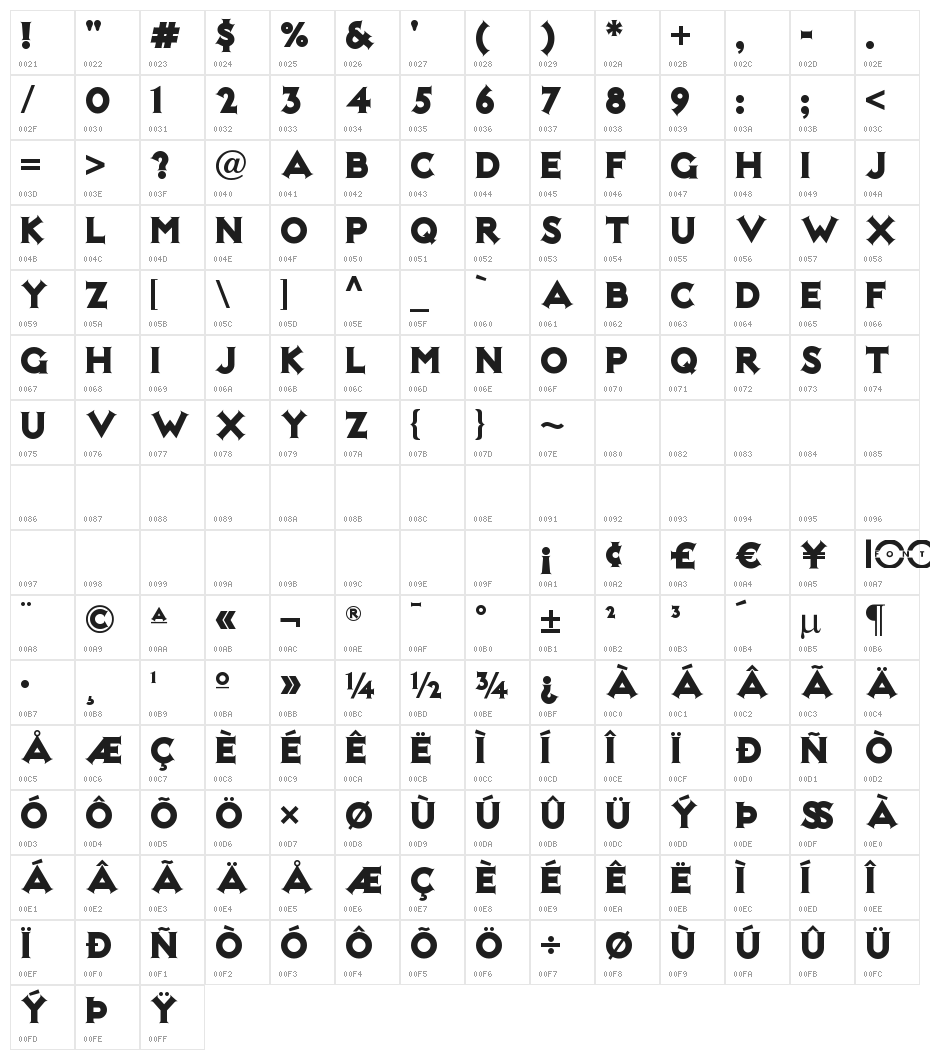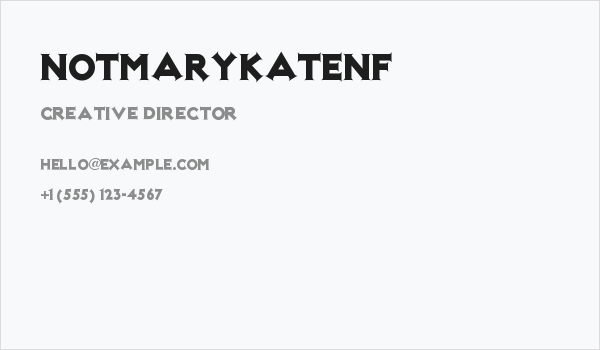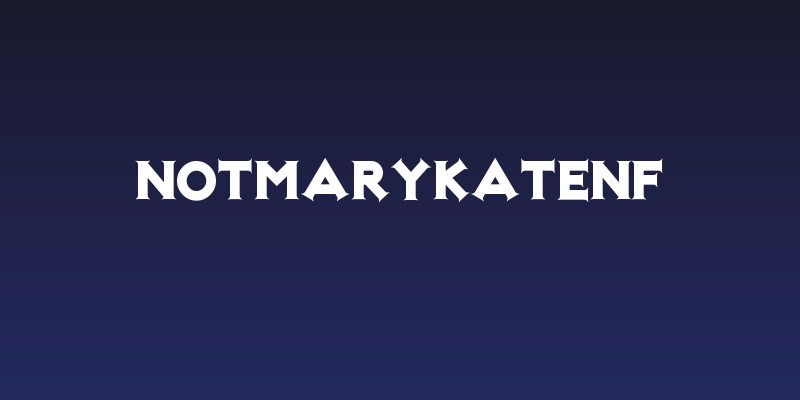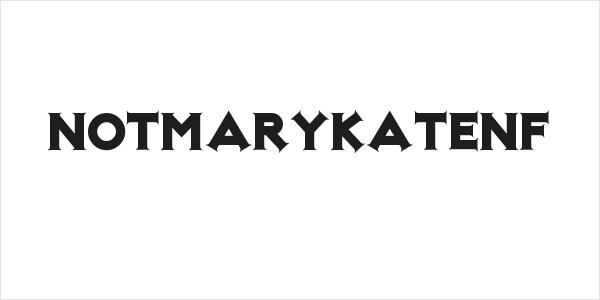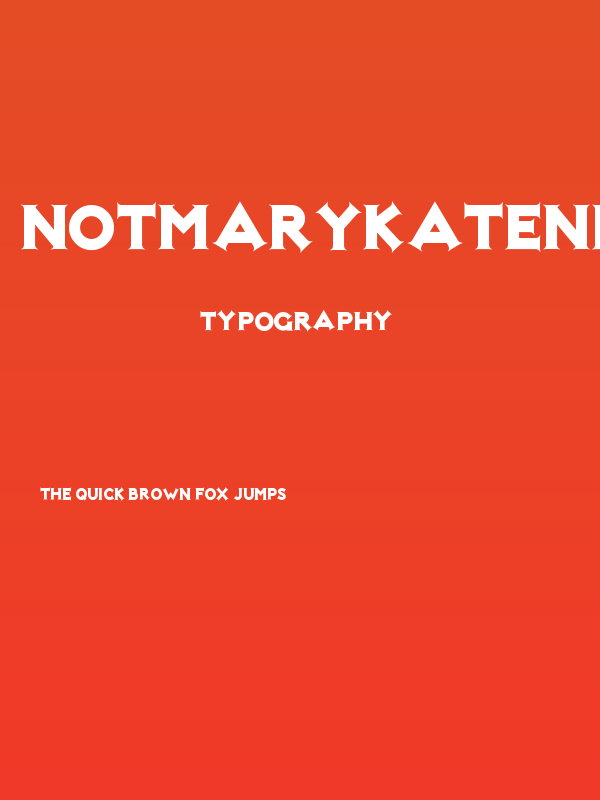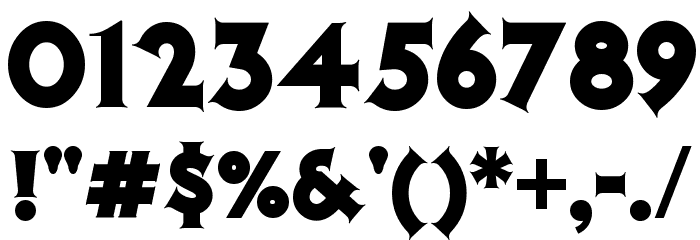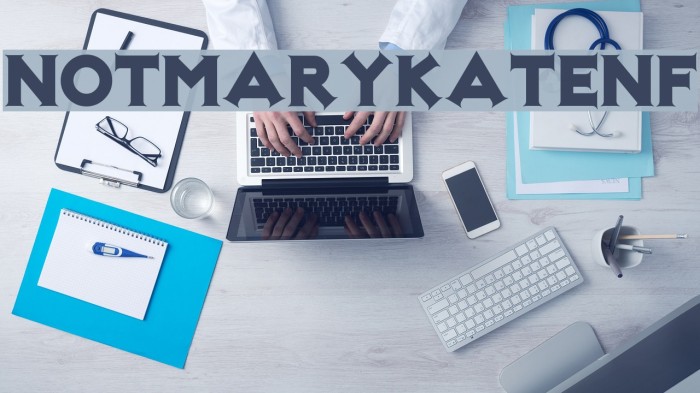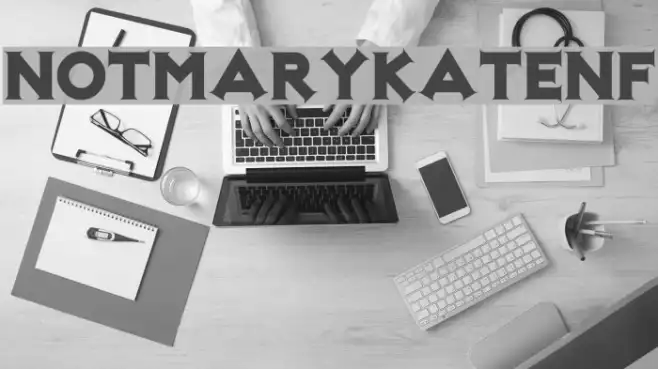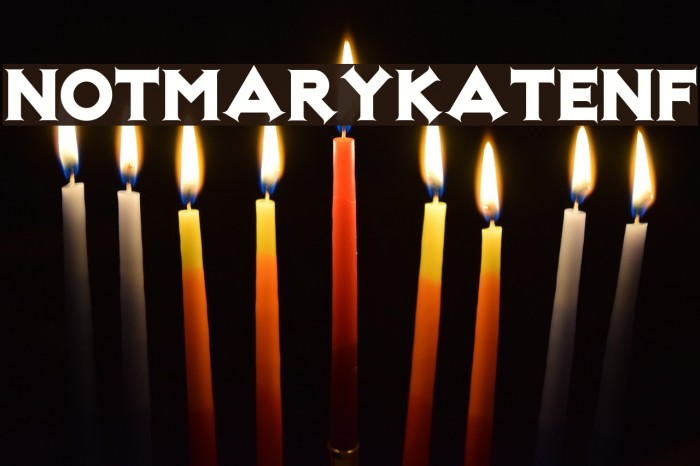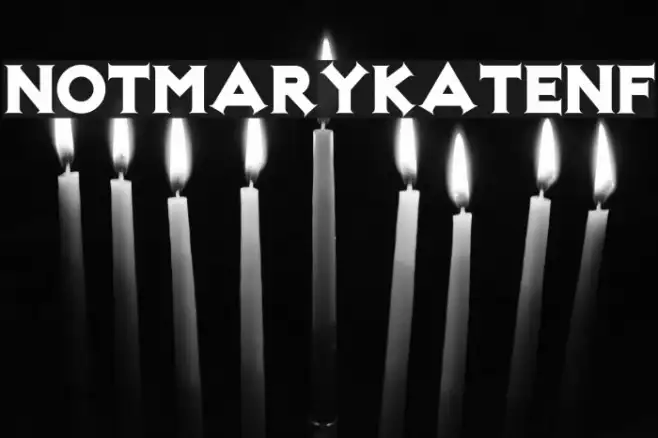
NotMaryKateNF Font
NotMaryKateNF Description
This font features a bold and striking design with sharp, angular serifs that give it a distinctive, edgy appearance. The uppercase letters are particularly prominent, with a strong presence that commands attention. The numbers and special characters maintain the same bold style, ensuring consistency across all glyphs. The overall look is both modern and slightly retro, reminiscent of vintage signage or posters. The font's unique style makes it ideal for projects that require a bold statement or a touch of nostalgia.
| Overall Style | Modern, Vintage |
| Proposed Projects | Ideal for branding, poster design, album covers, and any project needing a bold, eye-catching typeface. |